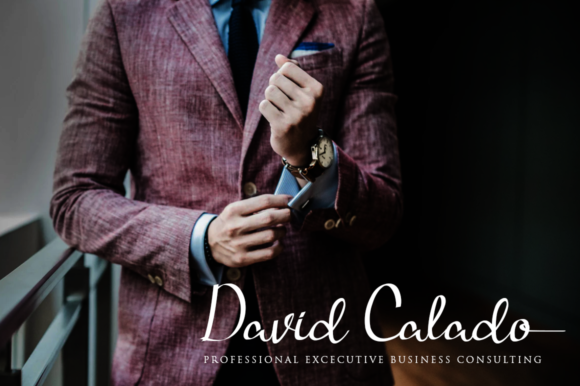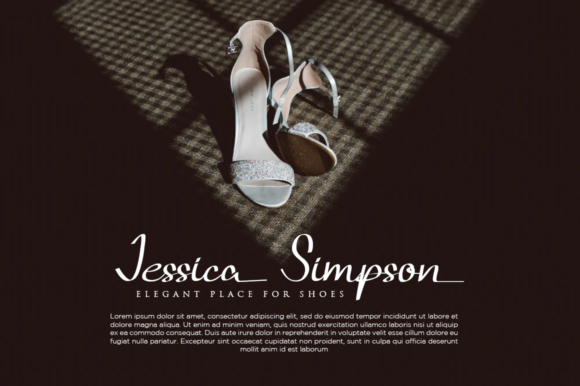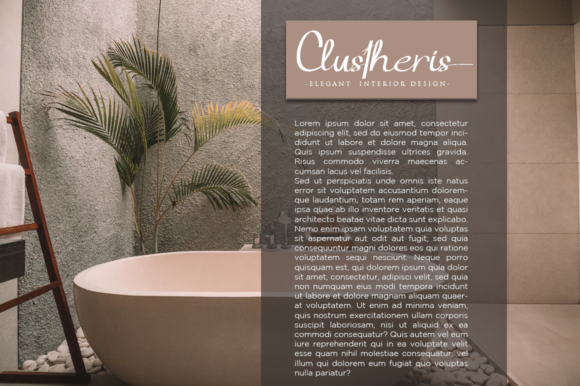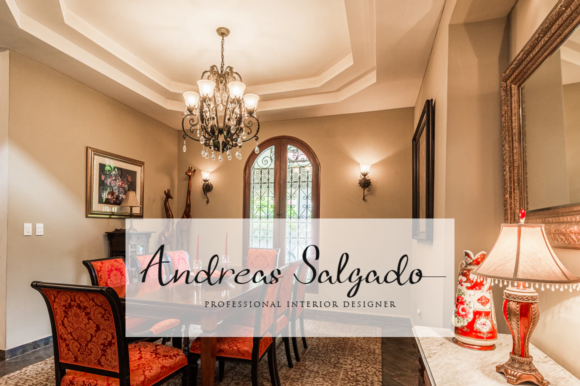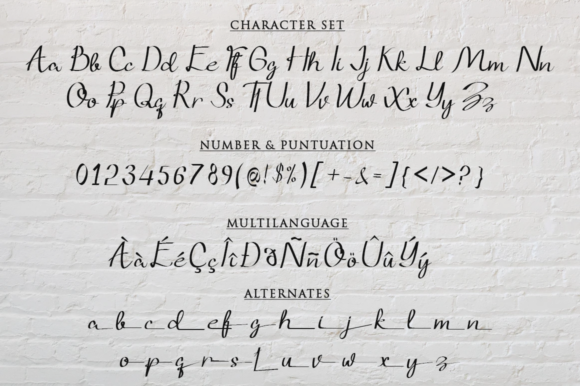
Introduction to Quincyland Font
Remember that moment when you’re brainstorming ideas for a creative project, and everything just falls into place? The colors, the layout, the typography – it all comes together to create something truly special. And at the heart of it all is the font. A good font can make or break the look and feel of your design, which is why we’re excited to introduce you to the Quincyland Font.
This elegant script font has a timeless classic feel that’s perfect for designers who want to add a touch of sophistication to their projects. With its high-quality design and versatile style, the Quincyland Font is a valuable resource for anyone looking to elevate their creative work. Whether you’re working on a free download or a paid project, this font is sure to impress with its beautiful, transparent background and impeccable form.
As a design resource, the Quincyland Font offers endless possibilities for creative expression. Its balanced and varied style makes it easy to use in a variety of contexts, from marketing materials to wedding invitations. And with its elegant script feel, it’s the perfect choice for designers who want to add a touch of high-end style to their projects.
Key Features of Quincyland Font
- High-quality, elegant design perfect for creative projects
- Unique, hand-drawn style with intricate details and textures
- Perfect design resource for branding, typography, and creative projects
Honest Review: Quincyland Font
One of the things that stands out about Quincyland Font is its versatility. The font is available in a range of weights and styles, making it perfect for a variety of creative projects. ✨
- Perfect for creative projects, from logos to typography
Overall, I’m thoroughly impressed with Quincyland Font. It’s a great design resource that’s perfect for any creative project. However, I did notice that the font can be a bit finicky when it comes to certain font sizes, so be sure to check the compatibility before using it. ⚠️
The Quincyland Font is ideal for various design projects, including:
- Branding